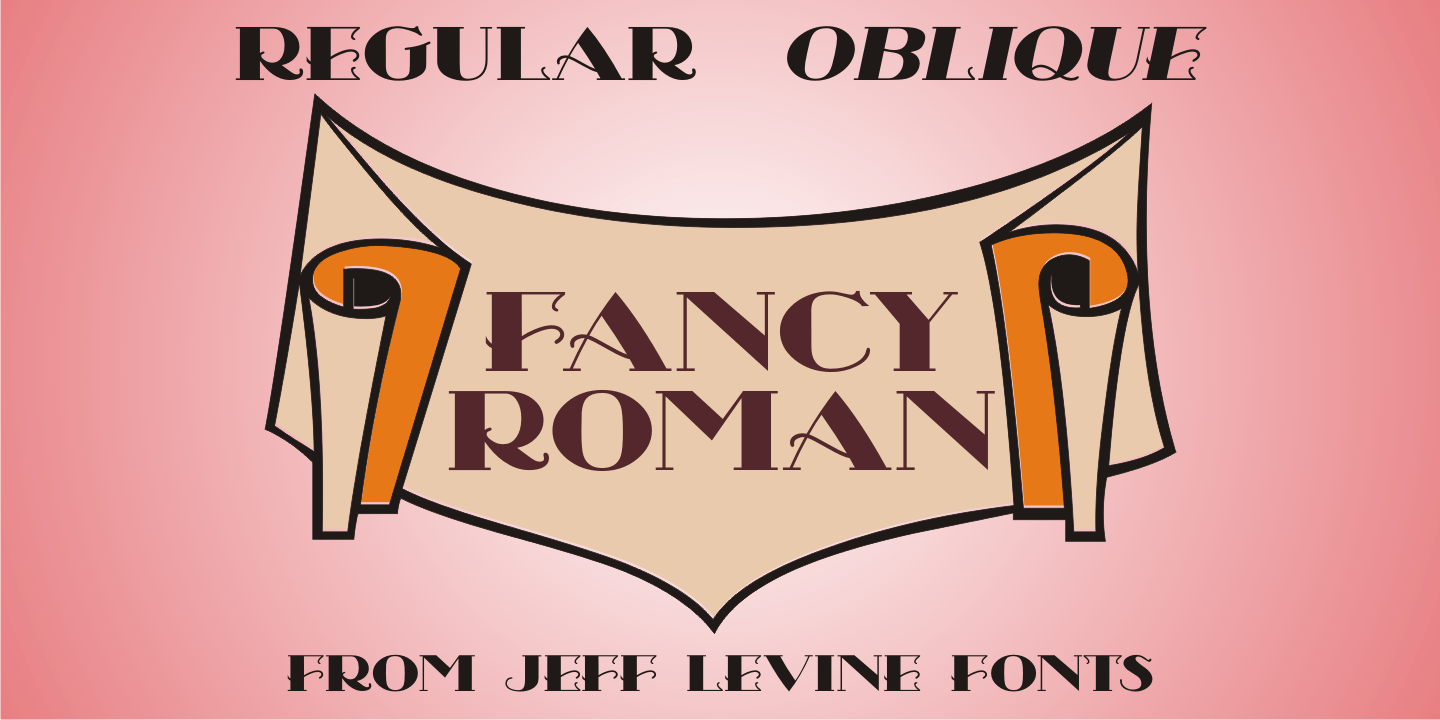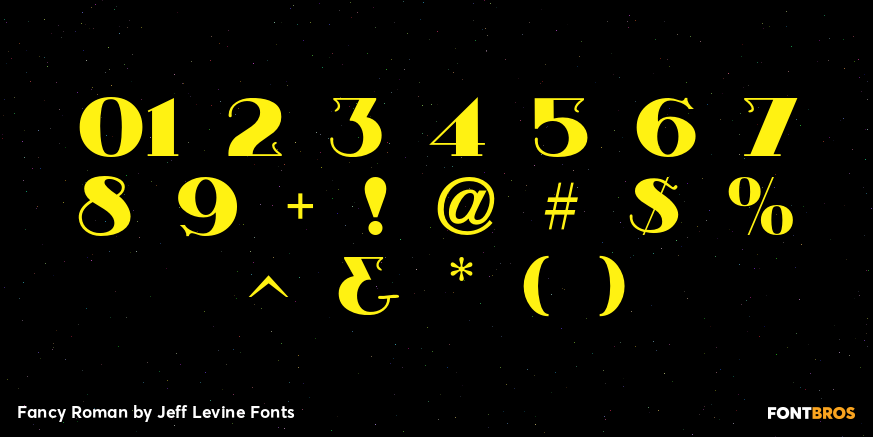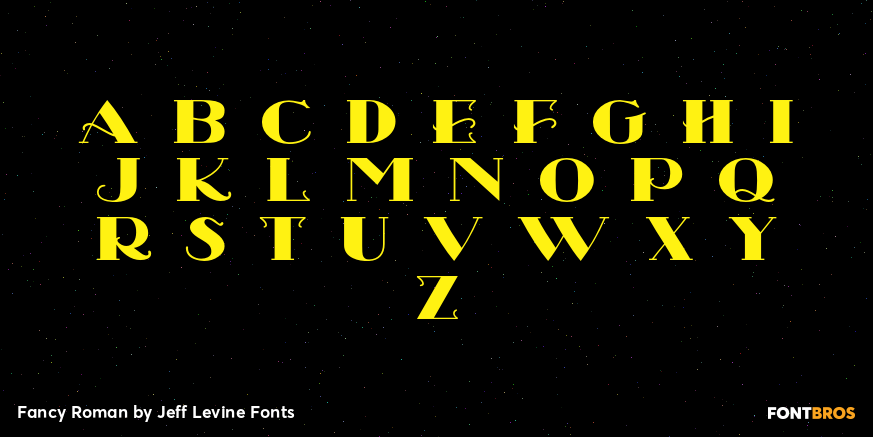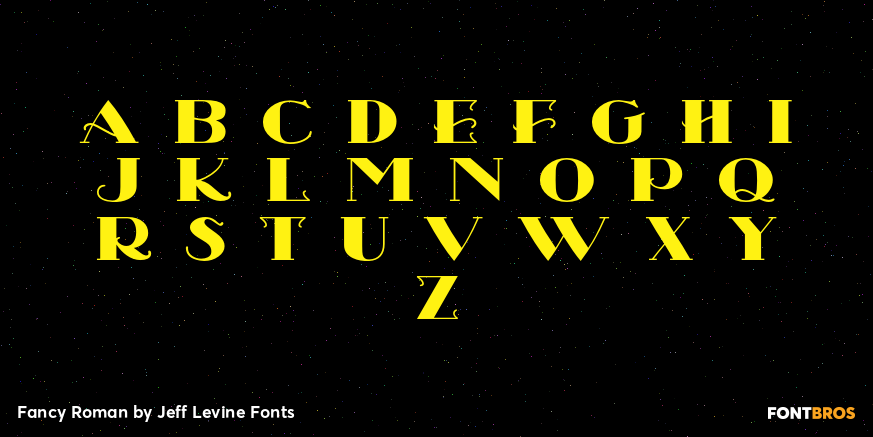
Fancy Roman
A 1925 edition for an orchestral arrangements catalog entitled 'Carl Fischer Progressive Orchestra Edition” has the title hand lettered in a bold, stylized Roman type design.
This has now become the digital font Fancy Roman JNL; available in both regular and oblique versions.